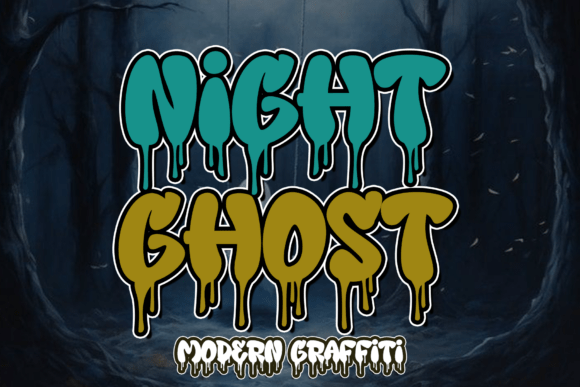
Unleash the Spooky Vibes with Night Ghost Font: The Ultimate Graffiti Font for Edgy Designs
Are you looking for a font that can add a spooky, rebellious energy to your designs? Look no further than the Night Ghost Font, a bold and edgy graffiti font that is perfect for Halloween designs, streetwear branding, horror posters, and edgy digital artwork. In this article, we’ll dive into the details of this unique font and explore its features, benefits, and uses.
What is Night Ghost Font?
Night Ghost Font is a bold and edgy graffiti font that features dripping, urban-inspired letterforms. Its unique design blends street art aesthetics with supernatural vibes, making it perfect for designs that require a spooky, rebellious energy. The font is designed to evoke the feeling of urban streets at night, with bold lines and dripping paint effects that give it a raw, edgy look.
Key Features of Night Ghost Font
- Bold and Edgy Design: Night Ghost Font features bold, dripping letterforms that are perfect for making a statement.
- Urban-Inspired Aesthetics: The font’s design is inspired by urban street art, with a gritty, raw look that’s perfect for streetwear branding and edgy digital artwork.
- Supernatural Vibes: The font’s dripping effects and bold lines give it a supernatural, spooky feel that’s perfect for Halloween designs and horror posters.
- Highly Versatile: Night Ghost Font can be used for a wide range of design projects, from posters and flyers to digital artwork and branding.
Uses for Night Ghost Font
Night Ghost Font is a highly versatile font that can be used for a wide range of design projects. Here are some of the most popular uses for this font:
- Halloween Designs: The font’s spooky, supernatural vibes make it perfect for Halloween designs, such as posters, flyers, and social media graphics.
- Streetwear Branding: The font’s urban-inspired aesthetics make it perfect for streetwear branding, such as logos, labels, and packaging.
- Horror Posters: The font’s bold, edgy design makes it perfect for horror posters, movie posters, and other designs that require a spooky, attention-grabbing look.
- Edgy Digital Artwork: The font’s unique design makes it perfect for edgy digital artwork, such as illustrations, animations, and video game designs.
Benefits of Using Night Ghost Font
There are many benefits to using Night Ghost Font for your design projects. Here are some of the most significant advantages:
- Unique Design: Night Ghost Font features a unique design that sets it apart from other fonts. Its bold, edgy look is sure to grab attention and make your designs stand out.
- Highly Versatile: The font can be used for a wide range of design projects, from posters and flyers to digital artwork and branding.
Tips for Getting the Most Out of Night Ghost Font
Here are some tips for getting the most out of Night Ghost Font:
- Use it Sparingly: Use the font sparingly to make a bigger impact. Overusing the font can make your designs look cluttered and overwhelming.
- Experiment with Colors: Experiment with different colors to find the perfect look for your design. The font looks great in bold, bright colors, but it can also be used in more muted tones.
- Combine with Other Fonts: Combine Night Ghost Font with other fonts to create a unique look. The font pairs well with sans-serif fonts and script fonts.
Night Ghost Font is a bold and edgy graffiti font that is perfect for designers who want to add a spooky, rebellious energy to their designs. Its unique design, versatility, and ease of use make it a great choice for a wide range of design projects, from Halloween designs and streetwear branding to horror posters and edgy digital artwork. By following the tips outlined in this article, you can get the most out of Night Ghost Font and create designs that are sure to grab attention.
- What is Night Ghost Font?: Night Ghost Font is a bold and edgy graffiti font with dripping, urban-inspired letterforms.
- What is Night Ghost Font used for?: Night Ghost Font is used for a wide range of design projects, including Halloween designs, streetwear branding, horror posters, and edgy digital artwork.